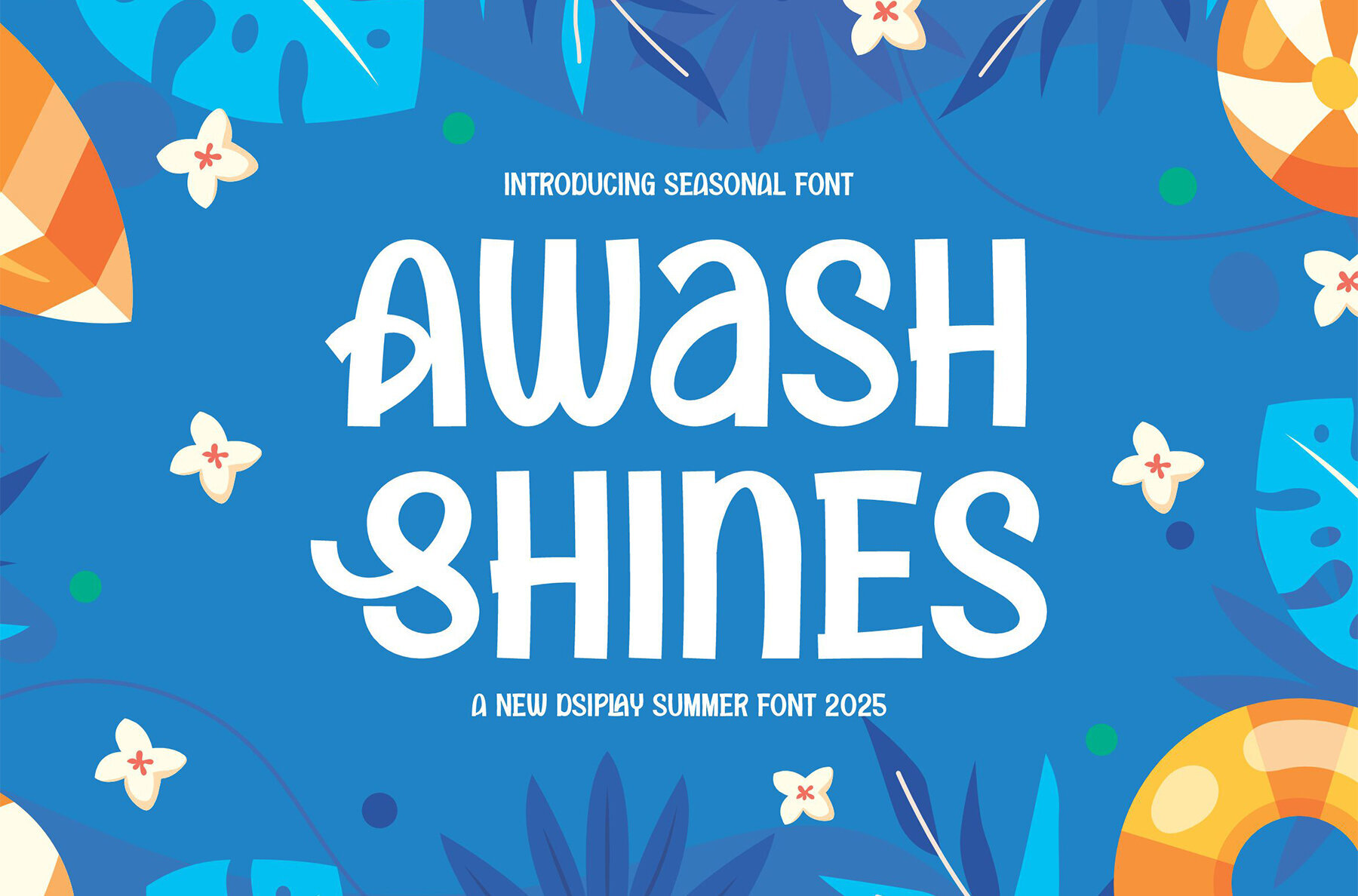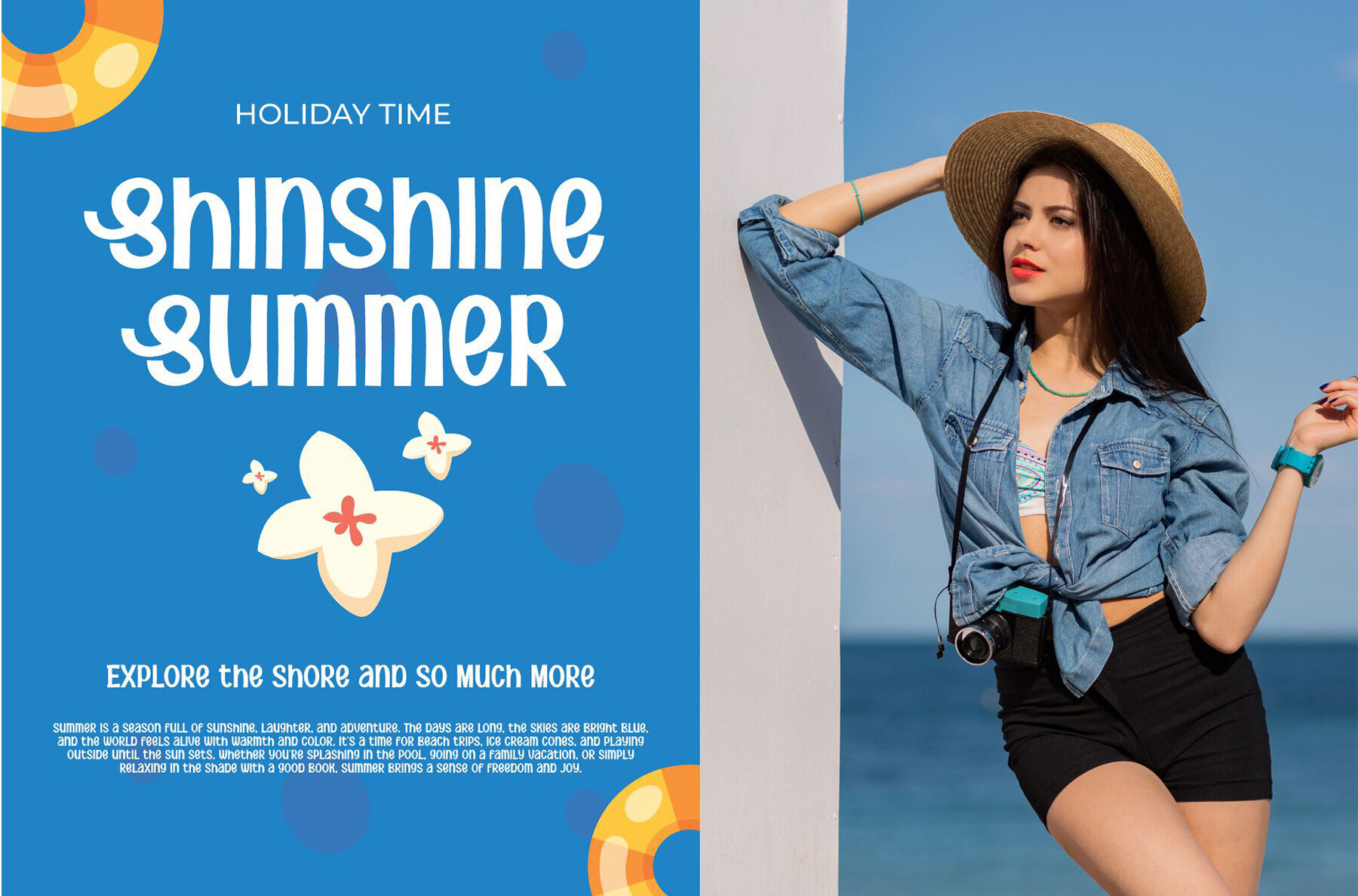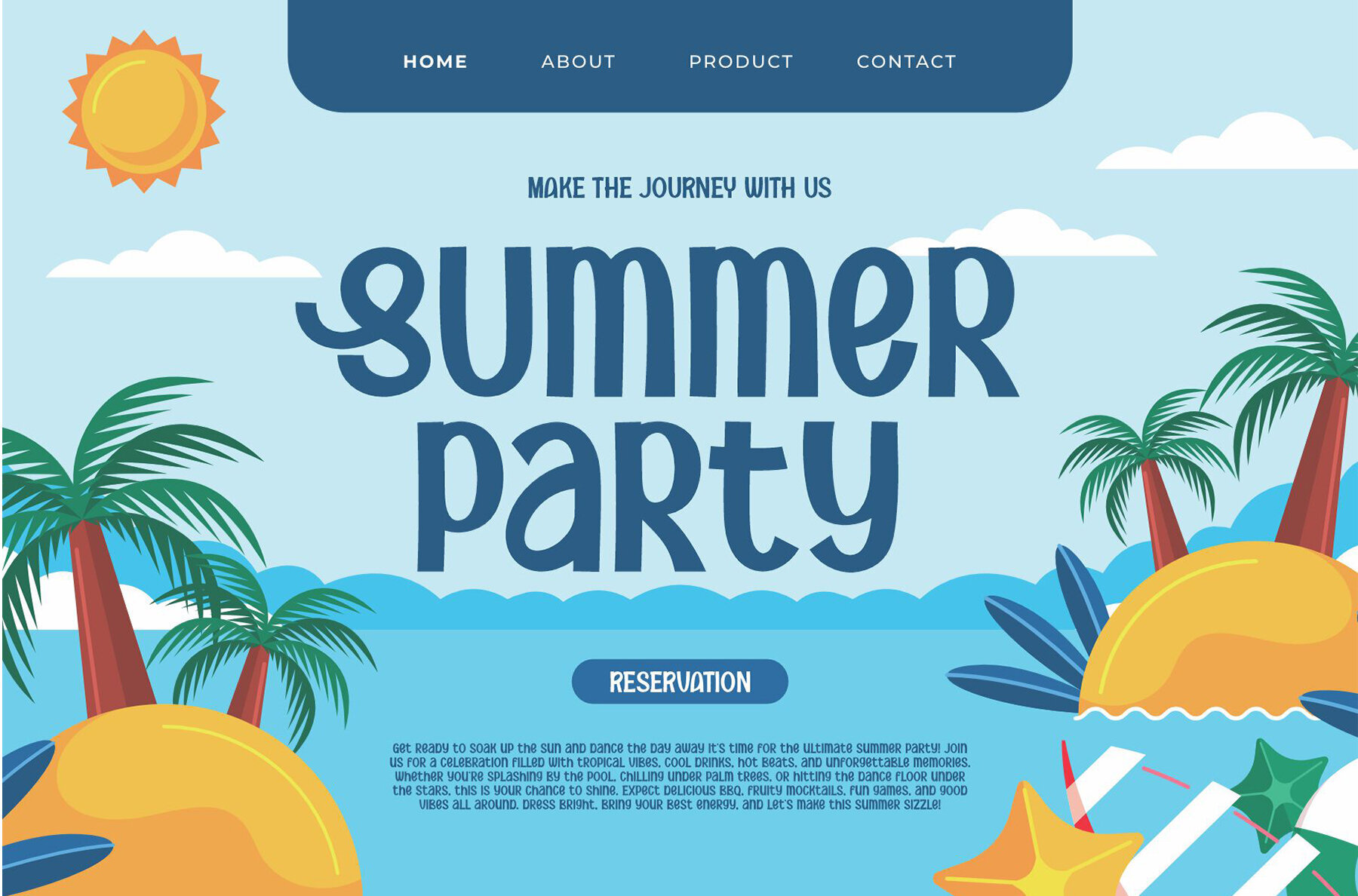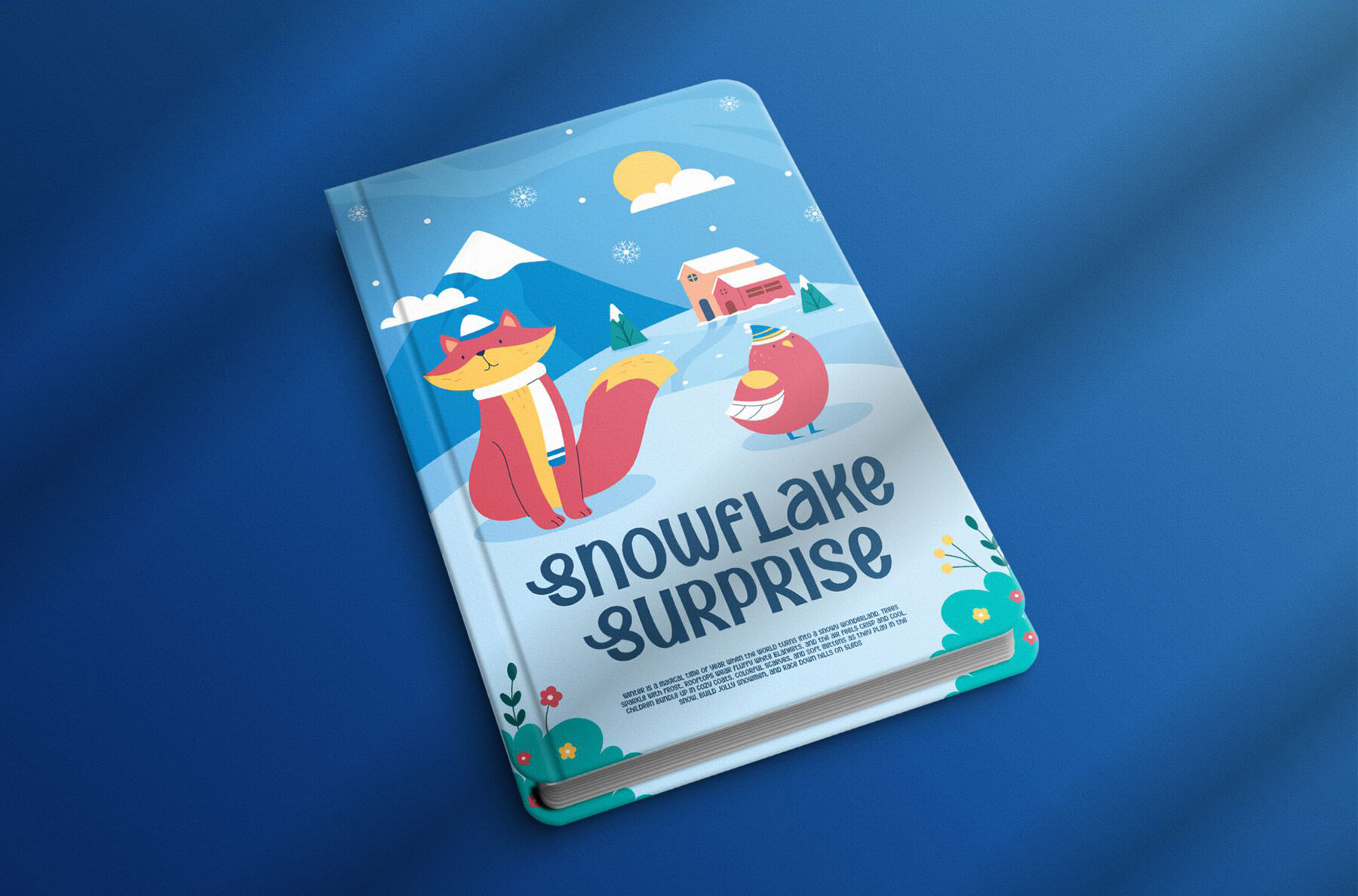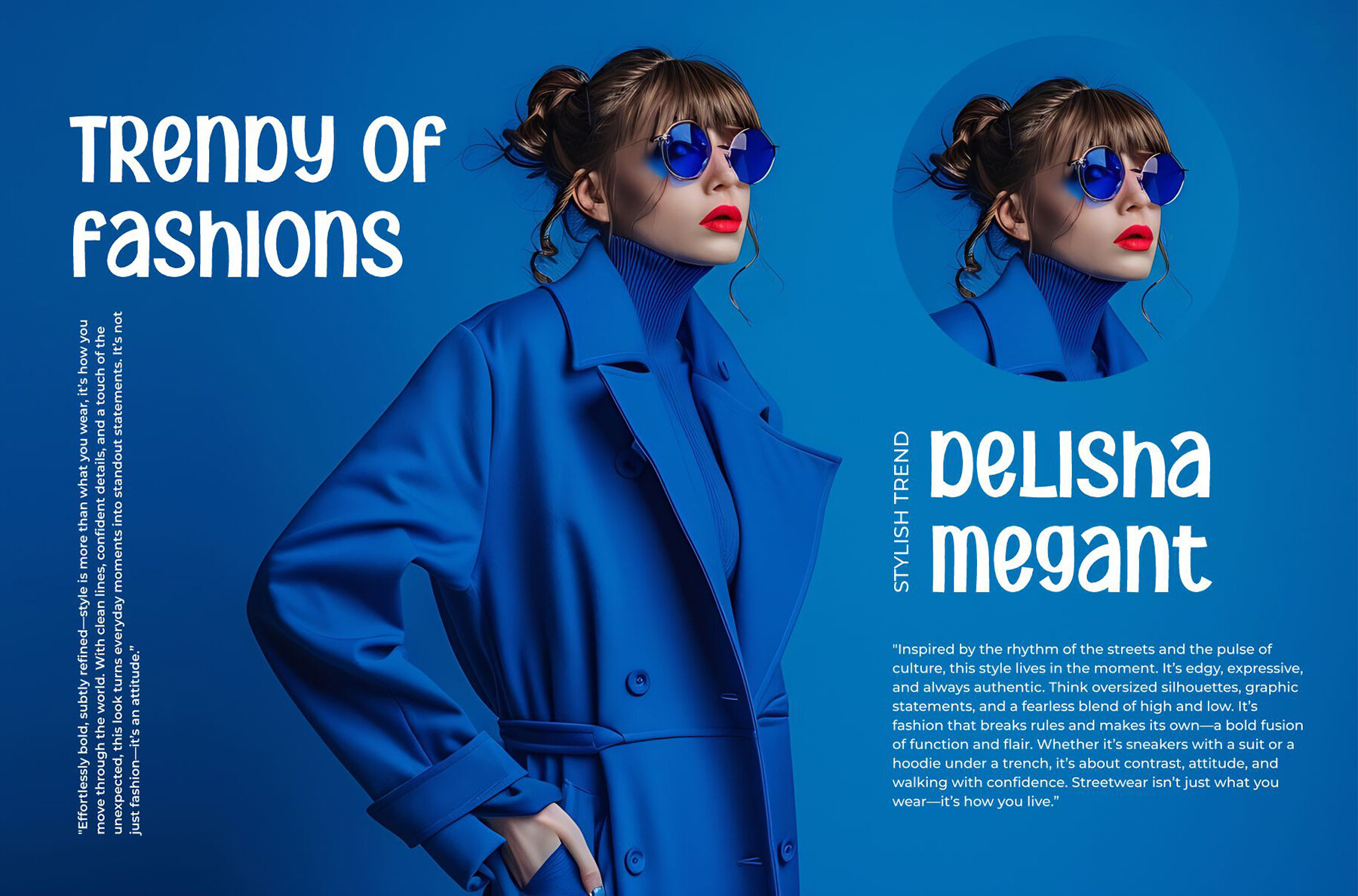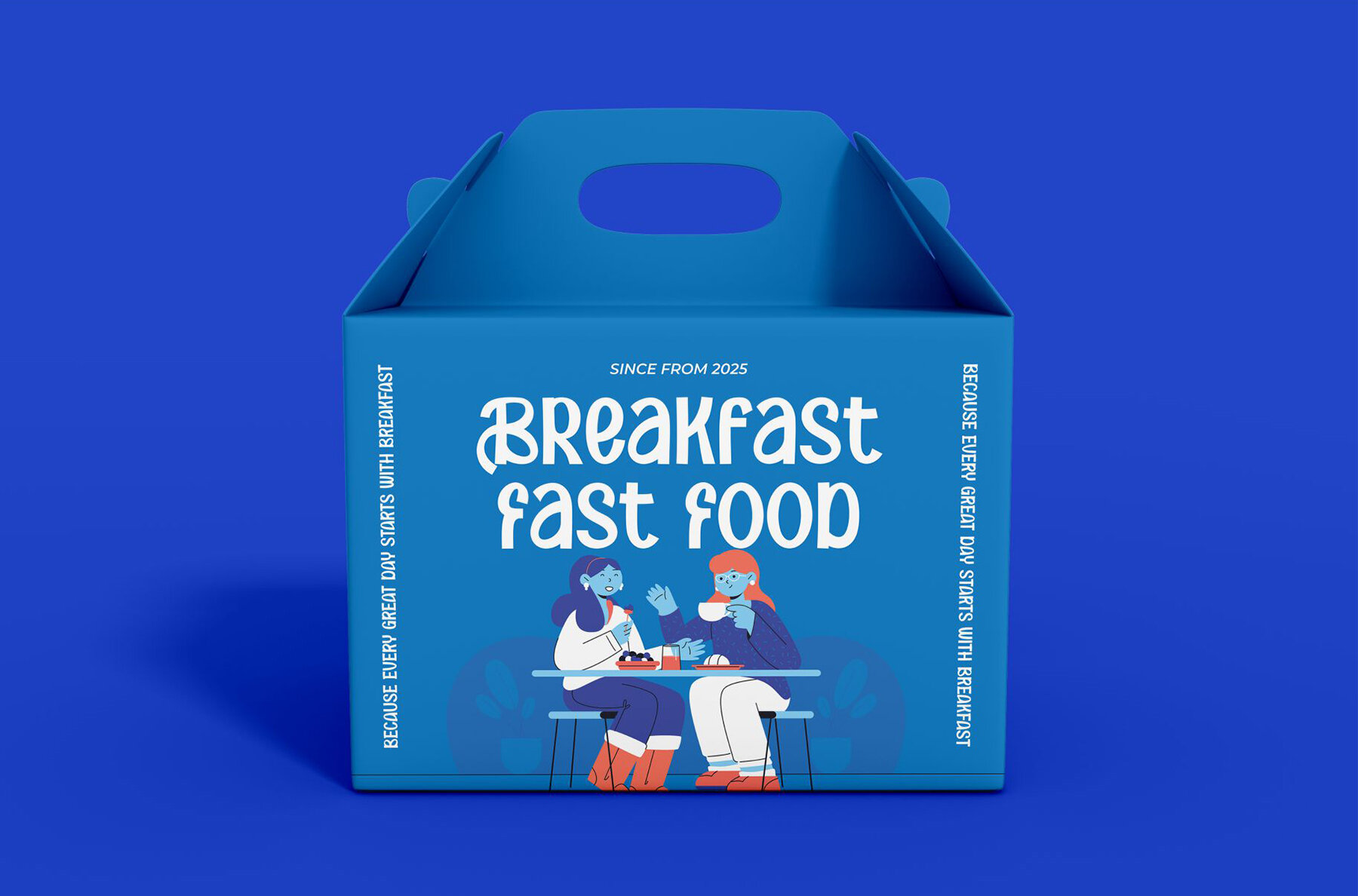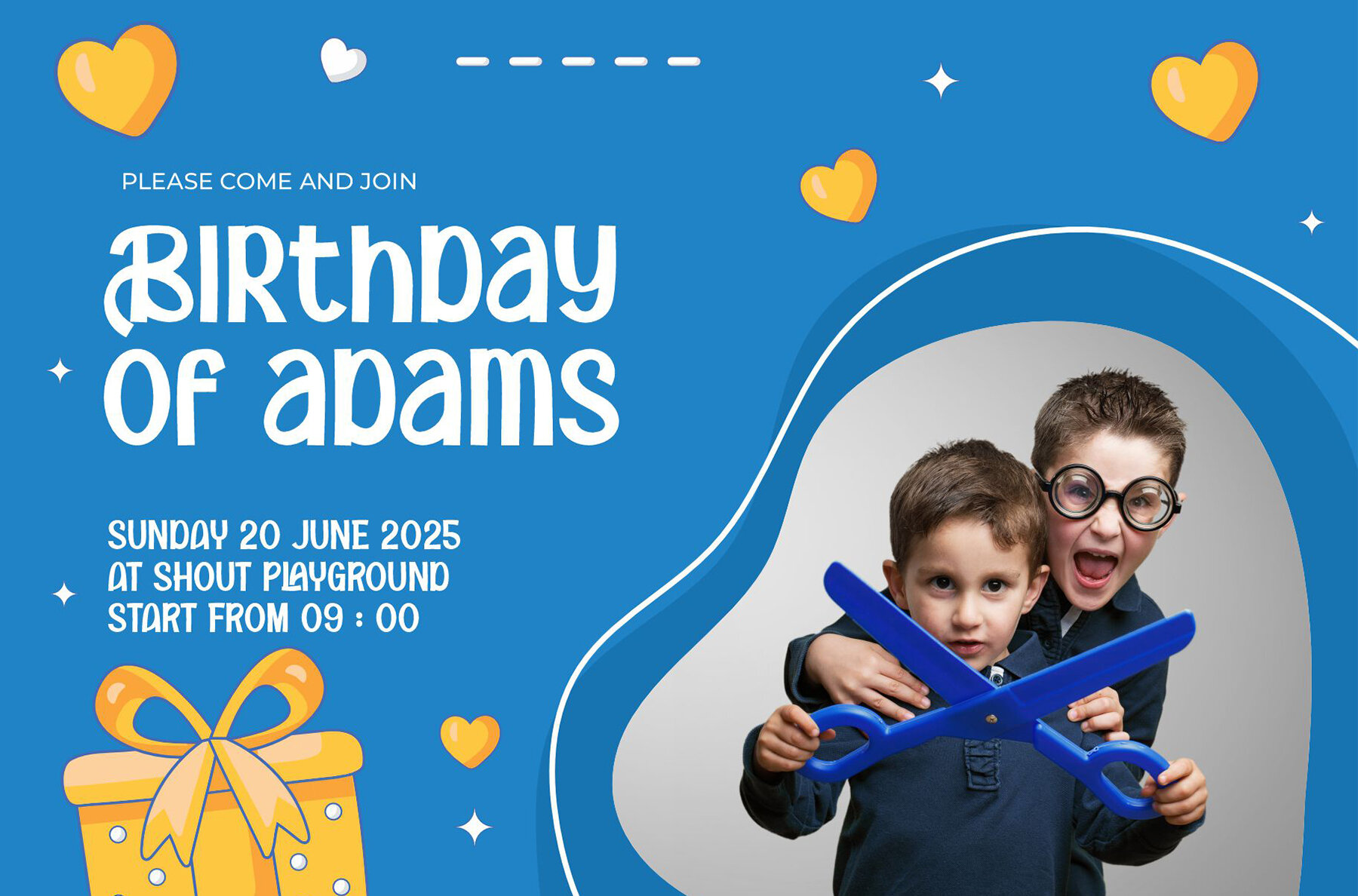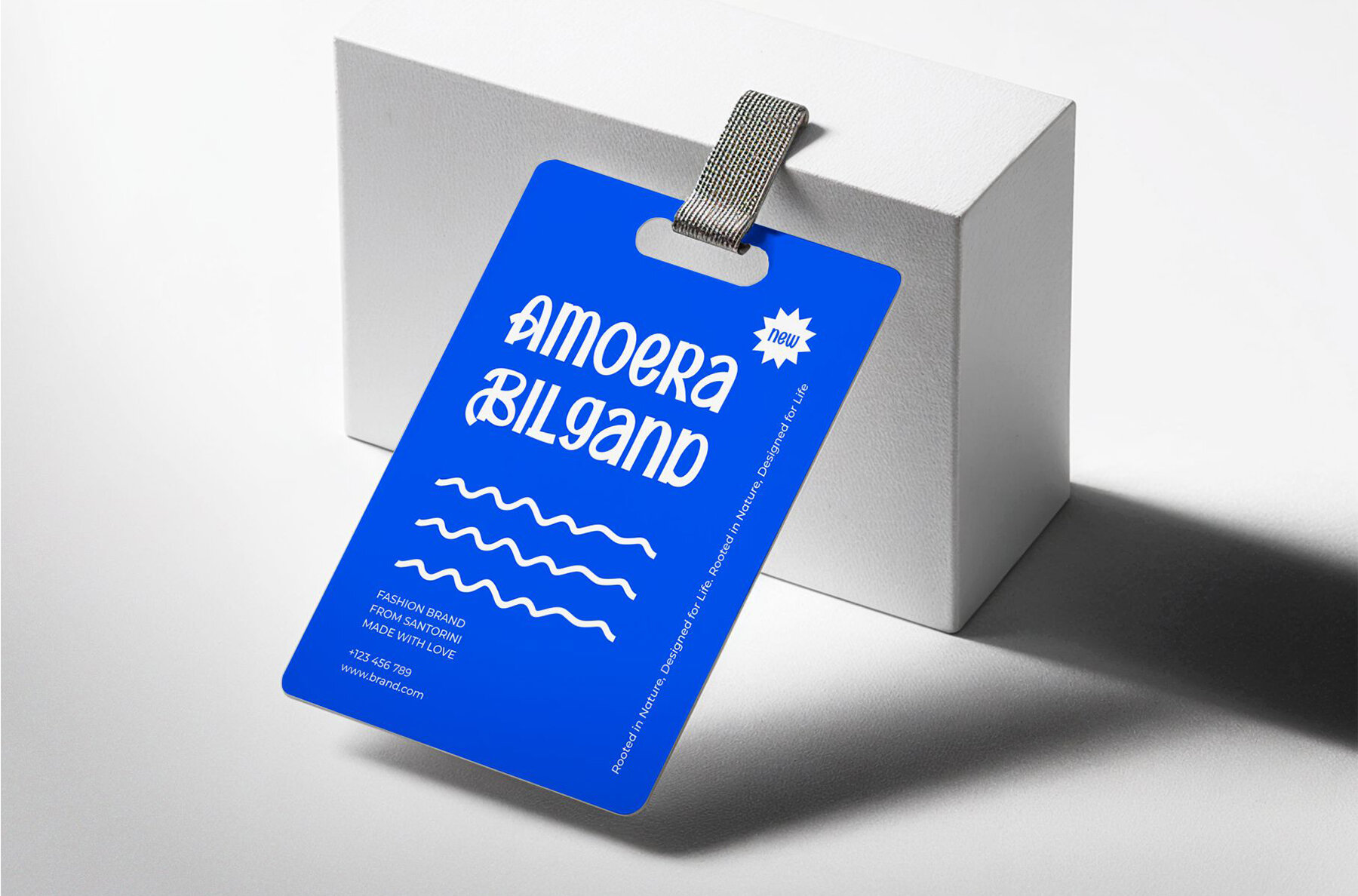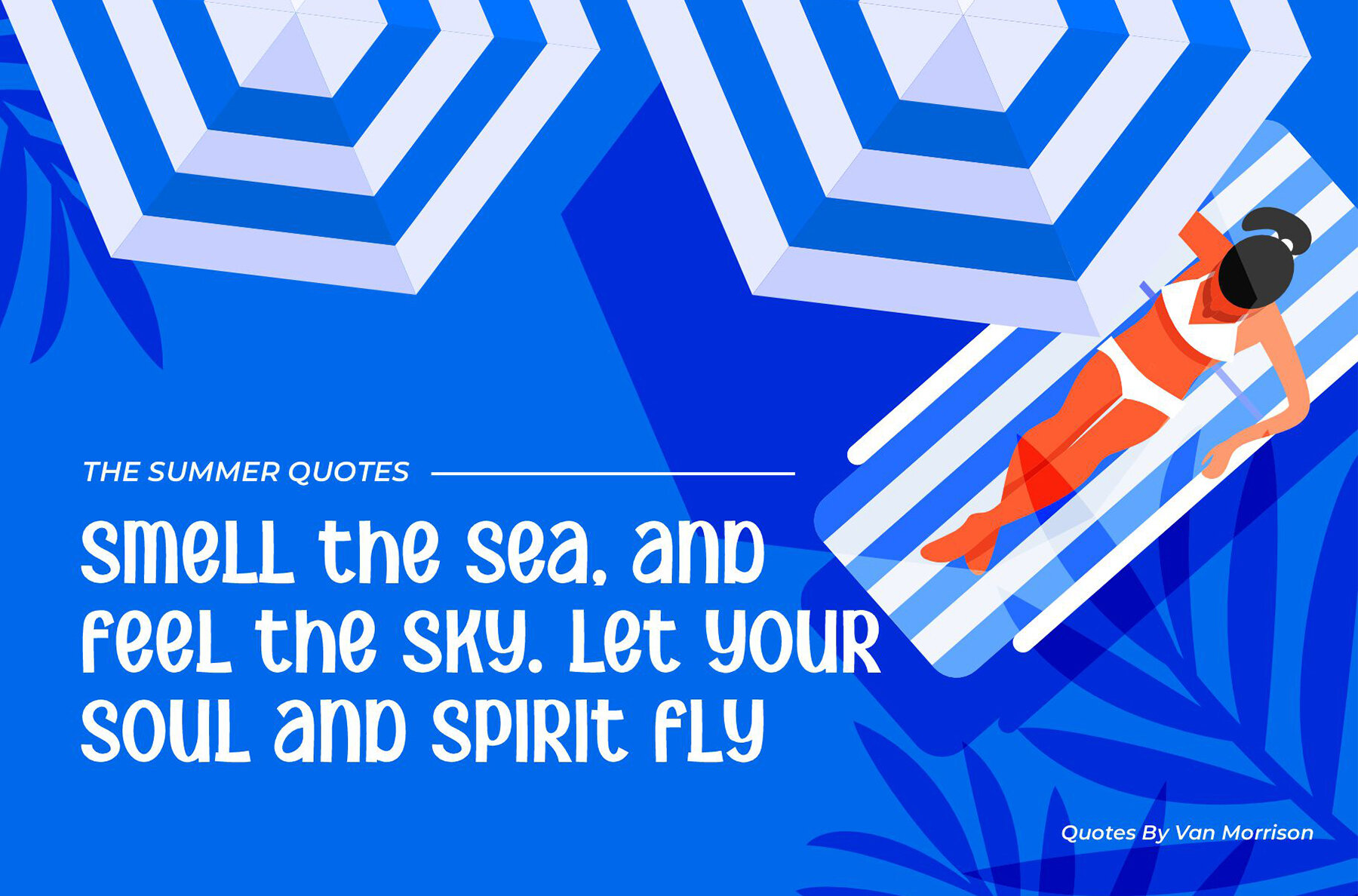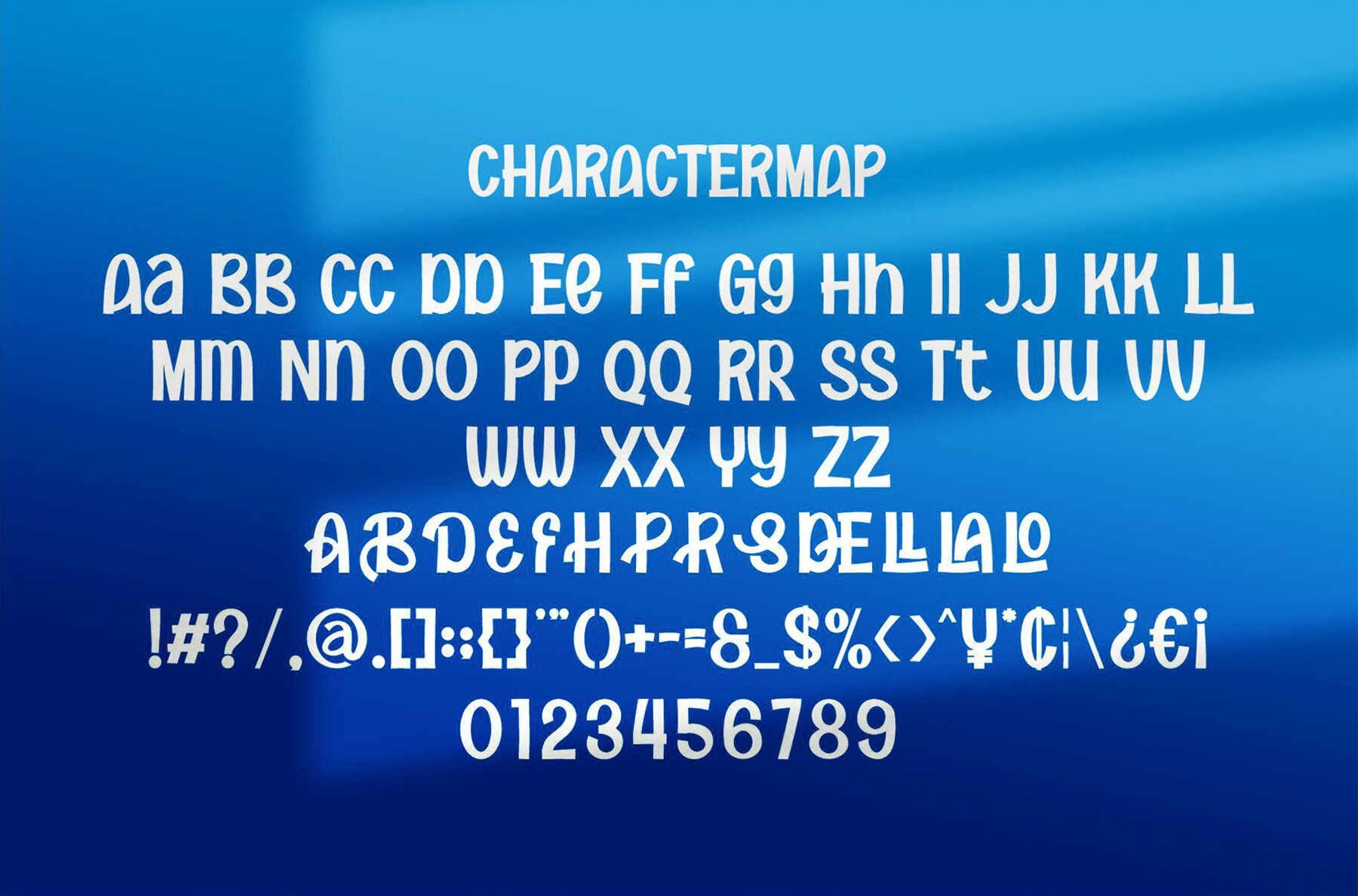
Awash Shines Font
Awash Shines
Awash Shines is a modern and trendy display font with a delightful bouncy design and a charming wood theme. Its distinctive character makes it ideal for a variety of creative projects. Whether you're designing invitation cards, creating eye-catching company logos, or crafting memorable movie titles, Awash Shines adds a unique flair. It's equally suited for business cards, book titles, and brand names, ensuring versatility across multiple design needs.Awash Shines